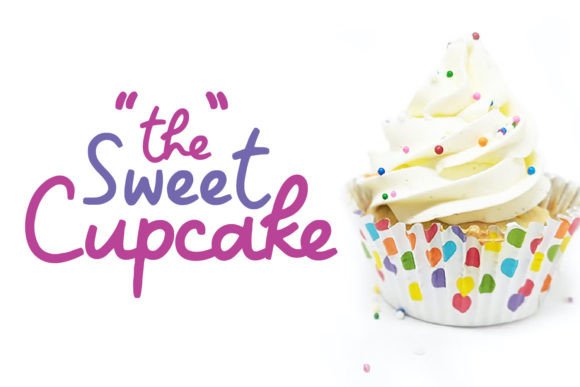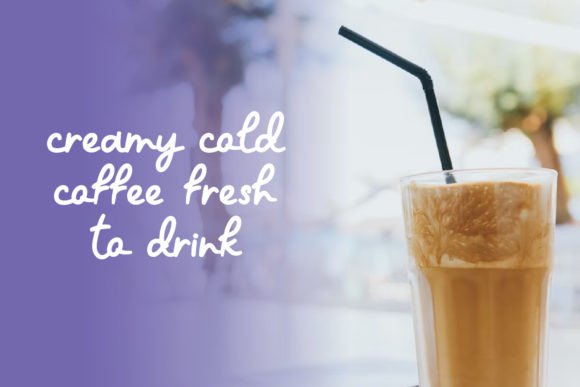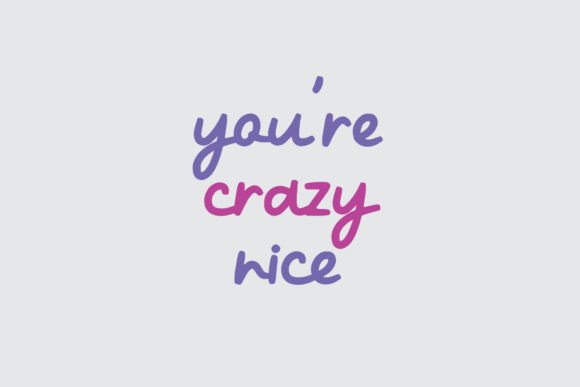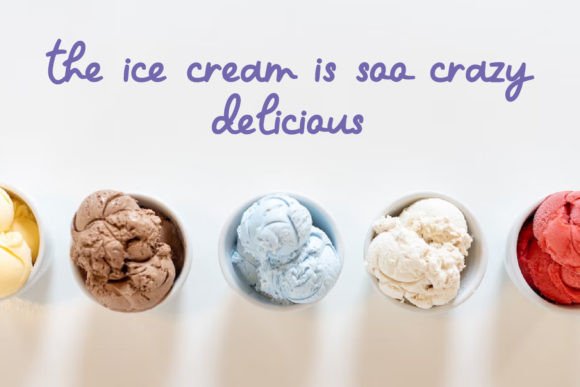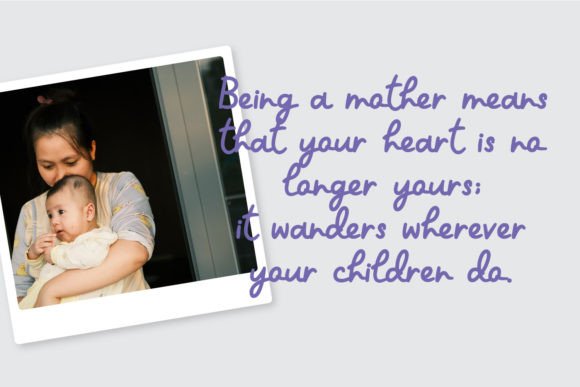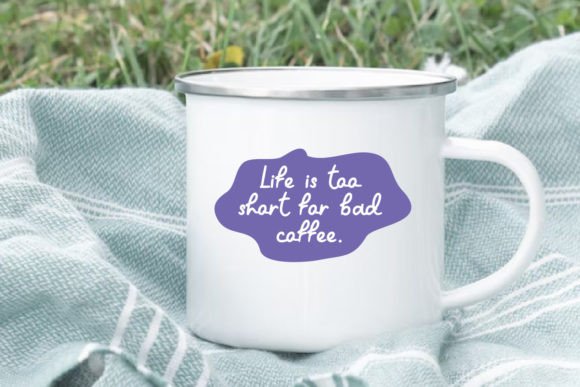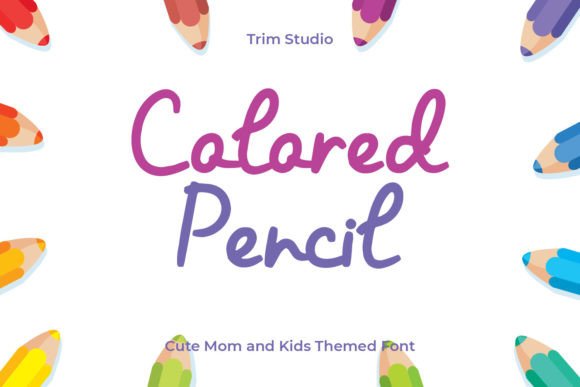
Introducing the Colored Pencil Font: A Playful and Whimsical Script for Creative Designs
In the world of typography, fonts play a crucial role in conveying the tone and personality of a design. For designers and crafters looking for a playful and whimsical script to add a touch of fun to their projects, the Colored Pencil font is an excellent choice. This modern and contemporary script combines rounded square letters with playful tails, making it perfect for designs aimed at children or anyone looking for a lighthearted aesthetic.
The Unique Features of Colored Pencil Font
The Colored Pencil font boasts two distinct features that set it apart from other scripts: rounded square letters and playful tails. The rounded square letters give the font a modern and edgy look, while the tails add a touch of whimsy and personality. This unique combination makes the Colored Pencil font an excellent choice for designers looking to create fun and engaging designs that capture the imagination.
Perfect for Designs Aimed at Children
The Colored Pencil font is particularly well-suited for designs aimed at children. Its playful and fun aesthetic is sure to capture the imagination of young minds and add a touch of joy to any project. Whether you’re designing a children’s book, a kids’ website, or educational materials, this font is an excellent choice. The Colored Pencil font is also perfect for crafters who create handmade cards, gift tags, or other paper crafts for kids.
Adding a Touch of Whimsy to Your Designs
One of the best things about the Colored Pencil font is its ability to add a touch of whimsy to any design. The playful tails and rounded square letters give the font a lighthearted and carefree feel that’s perfect for designs that need a bit of personality. Whether you’re designing a logo, a poster, or a social media graphic, the Colored Pencil font is sure to add a touch of fun and creativity to your project.
Tips for Using the Colored Pencil Font
To get the most out of the Colored Pencil font, here are a few tips to keep in mind:
• Use it for headings and titles: The Colored Pencil font is perfect for headings and titles, where its playful and whimsical aesthetic can really shine.
• Pair it with a simple font: To create visual interest, pair the Colored Pencil font with a simple, sans-serif font for body text.
• Experiment with colors: The Colored Pencil font looks great in bright, bold colors, so don’t be afraid to experiment and find the perfect hue for your design.
• Use it for kids’ designs: As mentioned earlier, the Colored Pencil font is perfect for designs aimed at children, so don’t hesitate to use it for kids’ projects.
In conclusion, the Colored Pencil font is a playful and whimsical script that’s perfect for designers and crafters looking to add a touch of fun to their projects. Its unique combination of rounded square letters and playful tails makes it an excellent choice for designs aimed at children or anyone looking for a lighthearted aesthetic. With its modern and contemporary look, the Colored Pencil font is sure to capture the imagination and add a touch of joy to any project.